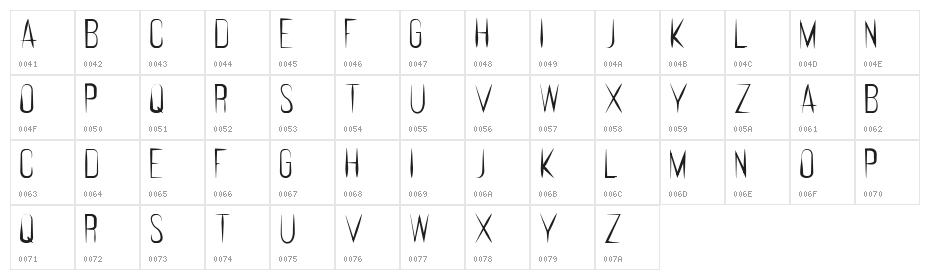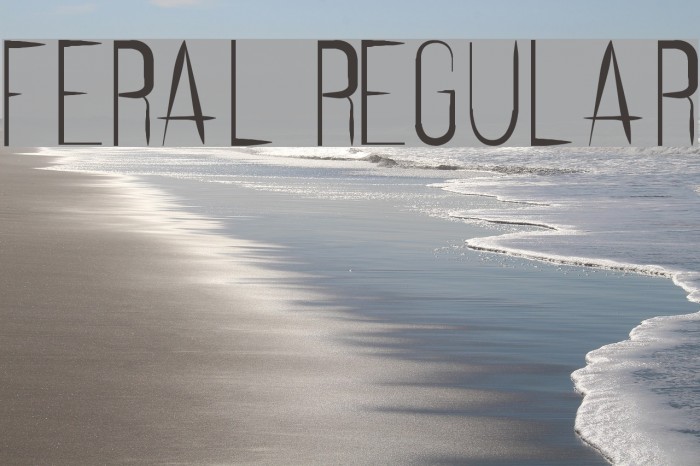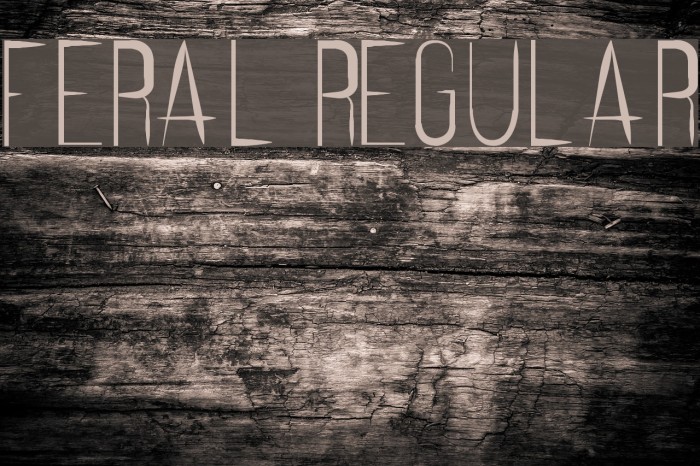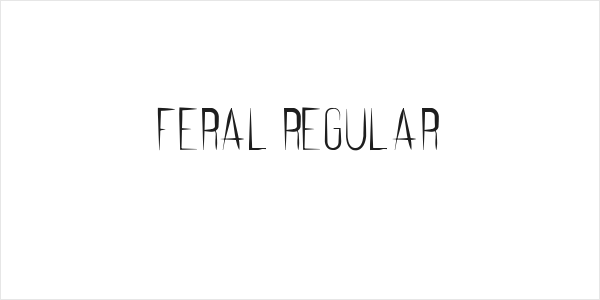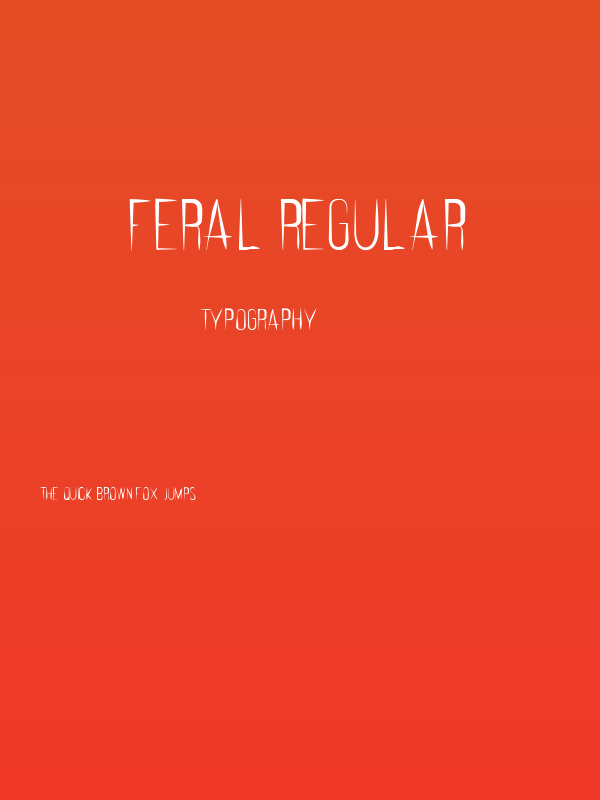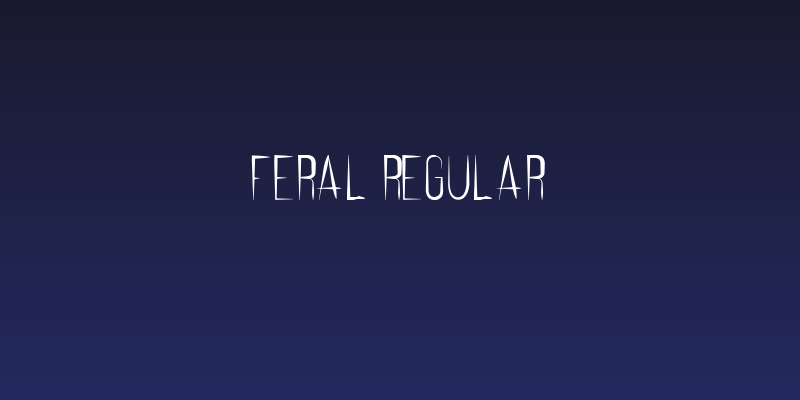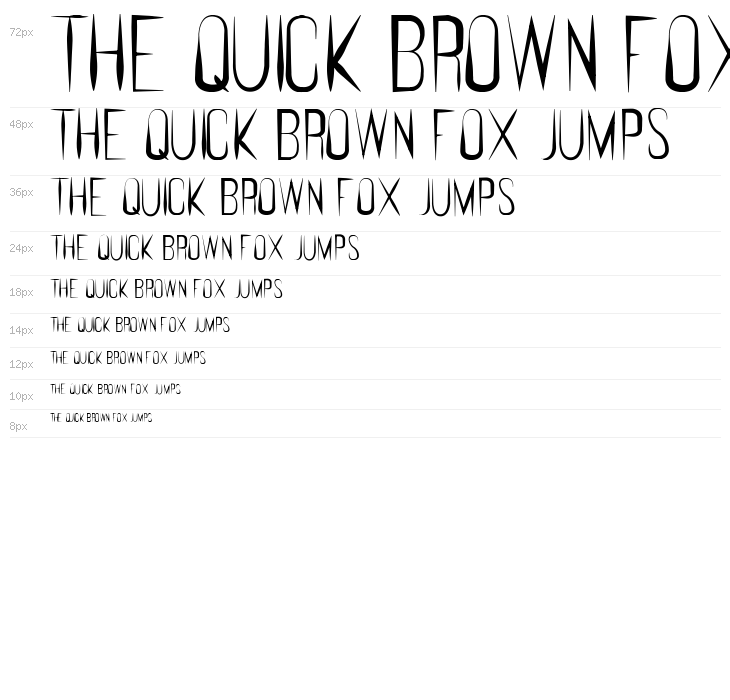
Feral Regular Font
Feral Regular Description
This font features a unique and edgy design with elongated, sharp serifs and a high contrast between thick and thin strokes. The characters have a tall, narrow appearance, giving them a striking and dramatic look. The uppercase letters are particularly distinctive, with some characters exhibiting exaggerated, pointed elements that add to the font's fierce and bold aesthetic. The lowercase letters maintain the same sharpness and contrast, ensuring consistency throughout the typeface. This font is ideal for projects that require a strong visual impact and a modern, avant-garde feel.